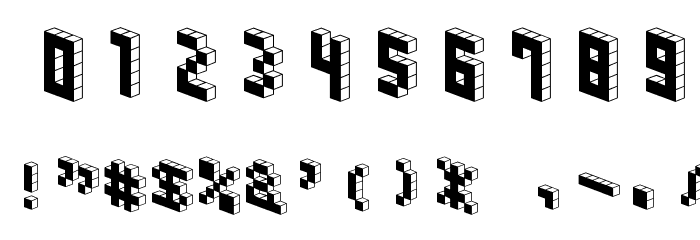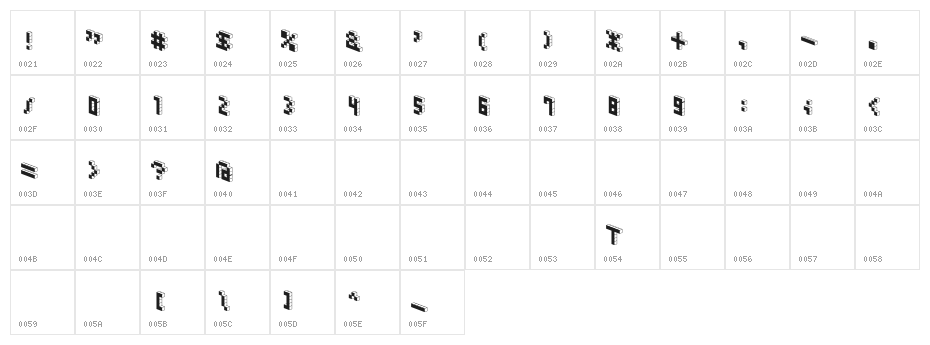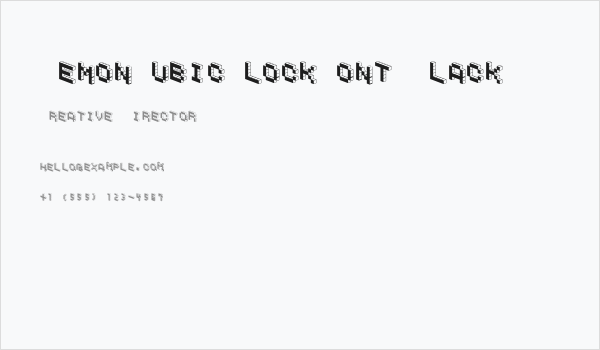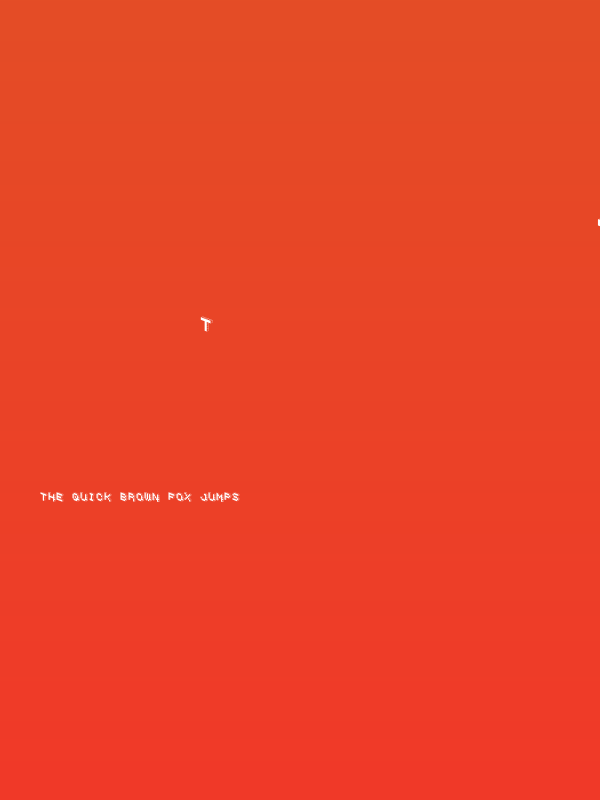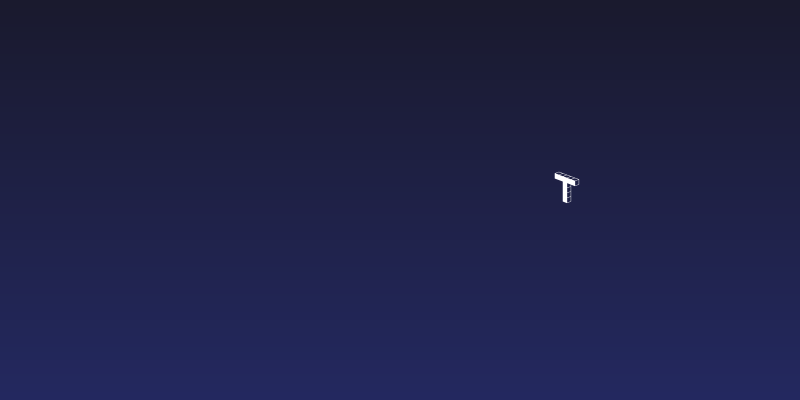
DemonCubicBlockFont Black Font
DemonCubicBlockFont Black Description
This font features a bold, three-dimensional block design that gives each character a cubic appearance. The letters and numbers are constructed with a shadow effect, creating a sense of depth and solidity. The style is highly geometric, with each character appearing as if it is built from stacked blocks. This gives the font a playful yet robust look, making it stand out in any design. The characters are evenly spaced, ensuring readability despite the complex design. The font's unique structure makes it ideal for eye-catching headlines or creative projects that require a distinctive and modern aesthetic.